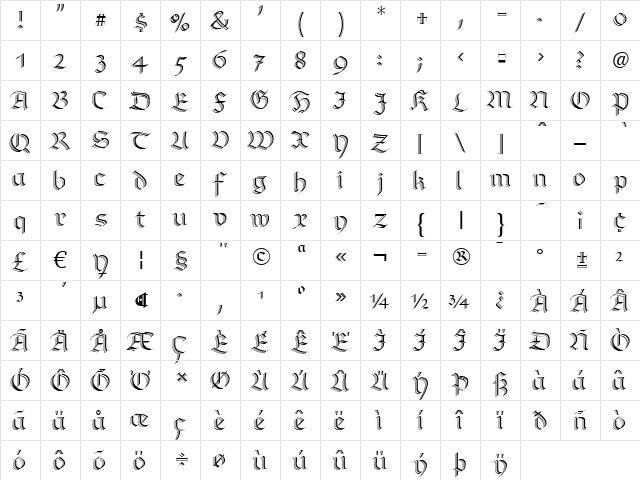
RichmondZierschrift LT Regular
Design Context for RichmondZierschrift LT Typeface
RichmondZierschrift LT is a composed and adaptable typeface that performs quietly and consistently across a wide range of design contexts. Its slender proportions lend an understated elegance to any composition.